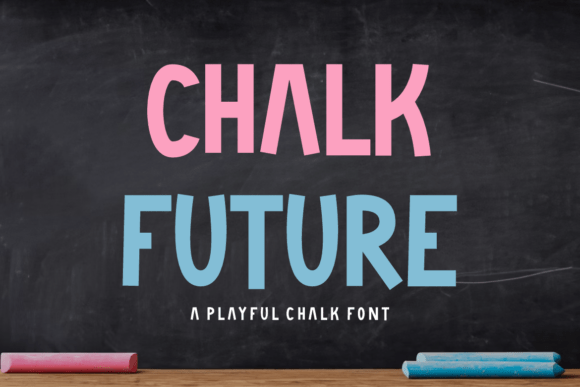
Bringing Back the Joy of Learning: Introducing Chalk Future Font
Who hasn’t scribbled on a blackboard at some point in their life, the smell of chalk and the sound of chalk scraping against the board still echoing in their memory? For many of us, the blackboard is a nostalgic reminder of the early days of school, a place where creativity and learning merged in a unique way. That’s exactly what the Chalk Future Font aims to capture – the carefree spirit of writing on a blackboard with chalk.
This delightful sans-serif display font is perfect for designers looking to create engaging educational materials, children’s books, or fun event signage. Its unique texture and charmingly rugged aesthetic make it an instant hit for those seeking a fresh, modern twist on the classic classroom look.
With its high readability and simplified glyph structure, the Chalk Future Font is a powerful tool for designers who want to bring a casual, friendly, and memorable voice to their projects.
Key Features of Chalk Future Font
- Unique Characteristics: Chalk Future Font features a unique blend of futuristic and handwritten styles, with bold and playful lines that evoke a sense of nostalgia and modernity.
- Script and Glyphs: The font includes a range of script and glyph options, including swashes, flourishes, and alternate characters, allowing designers to add a personal touch to their work.
Designer Review: Chalk Future Font
Overall, I think the Chalk Future Font has some really cool aspects, but also some limitations that might hold it back. Let’s dive in and see what I mean.
- Futuristic Feel: I love the unique, sleek aesthetic of this font. It’s perfect for any project that needs a modern and edgy vibe.
- Legibility: Despite its futuristic look, the Chalk Future Font is surprisingly easy to read, even at smaller sizes.
- Customization Options: The font comes with a range of weights and styles, making it easy to customize to fit your specific design needs.
- Overuse: The font’s futuristic feel can quickly become overused and cliché if not used carefully.
- Readability Issues: While the font is generally easy to read, it can be tricky to use at very small sizes or in low-contrast backgrounds.
Overall, I think the Chalk Future Font is a great choice for designers who want to add a touch of futurism to their projects. However, it’s essential to use it thoughtfully and consider the potential limitations to ensure the best results.
Tips for Getting the Most Out of Chalk Future Font
For optimal results:
- Pair the Chalk Future Font with complementary colors and textures.
- Use the font for headings and titles to add a touch of sophistication.
Chalk Future Font is suitable for:
- Designing modern and trendy marketing materials.
- Creating educational and informative content.
- Adding a touch of elegance to wedding invitations and event materials.